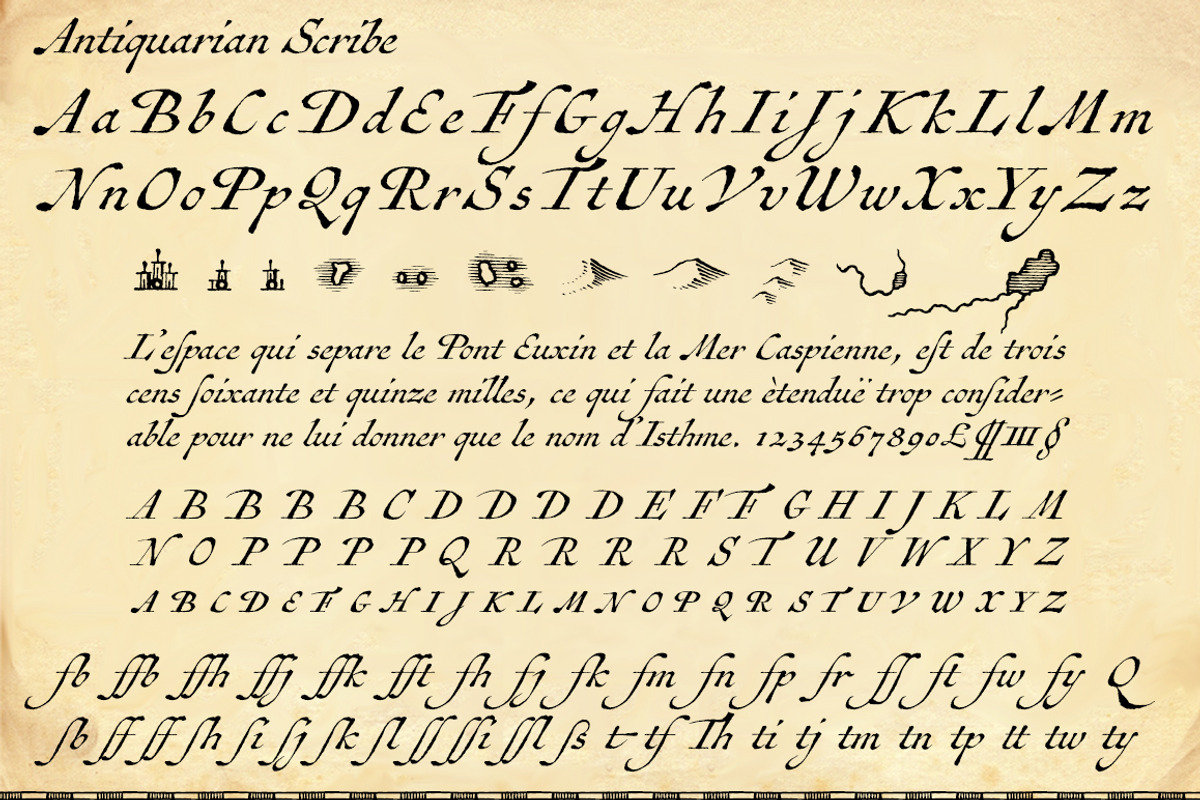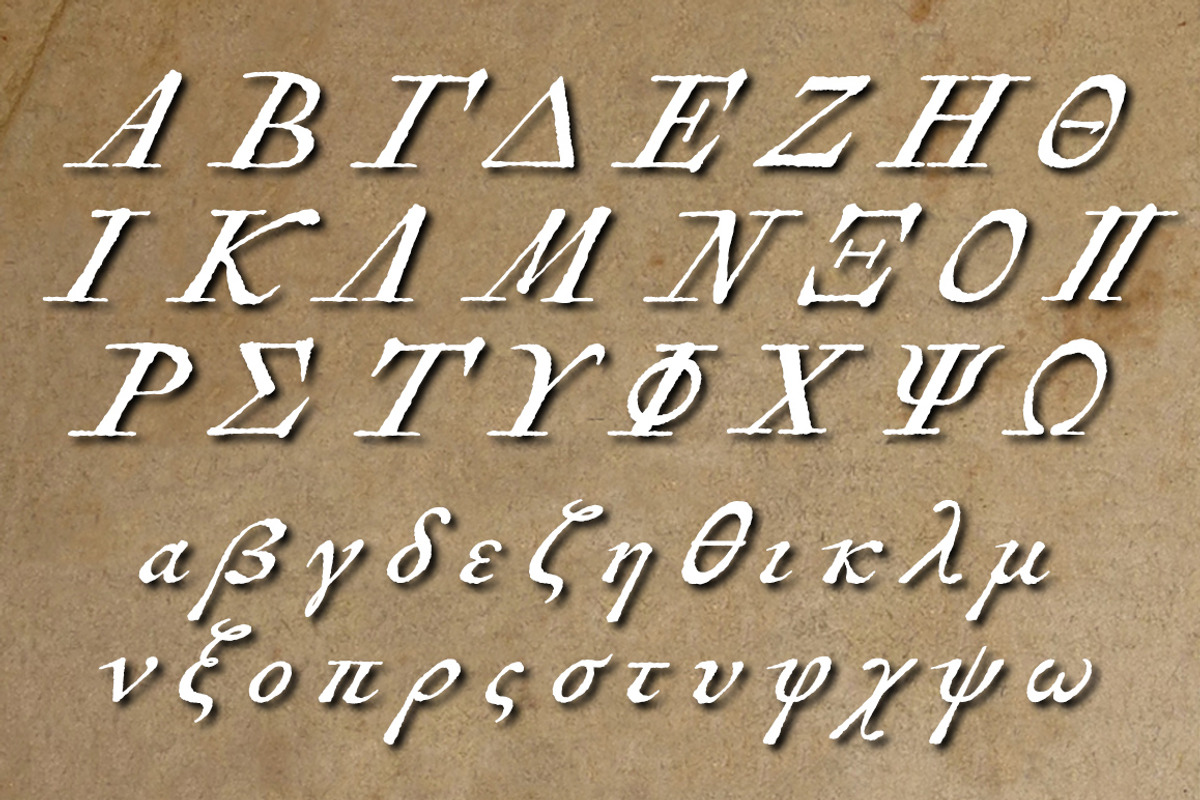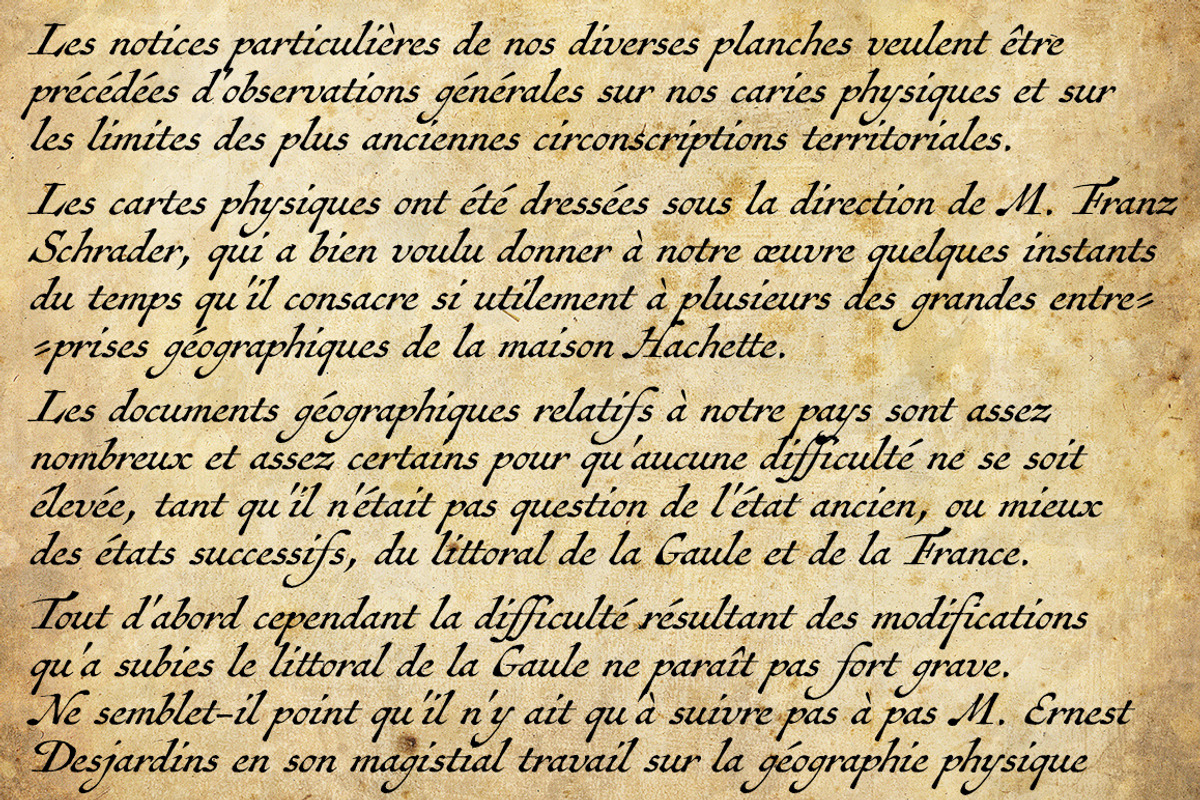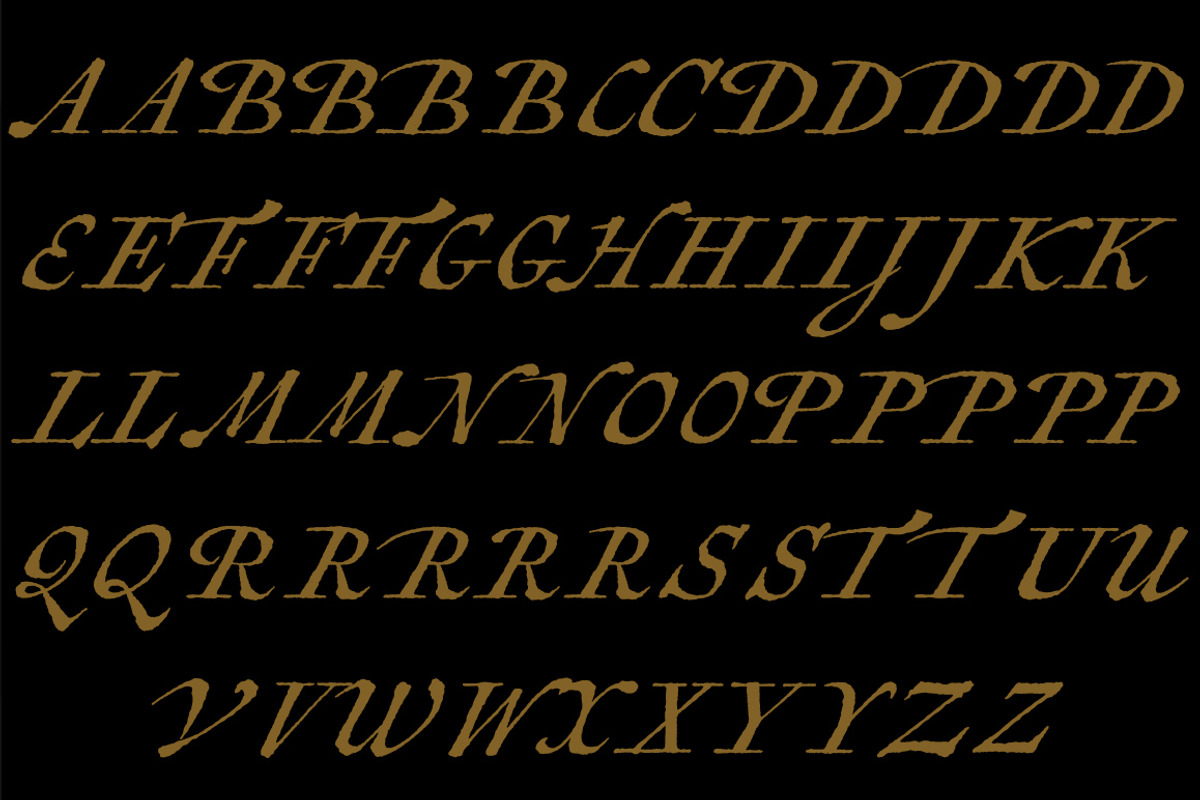
Antiquarian Scribe, an old map font
Antiquarian Scribe, an old map font by Three Islands Press is a font selected for branding, posters, packaging, typography.
- The text is in French, which gave me plenty of samples of diacritics and accented characters.
- Antiquarian Scribe has more than 1,000 glyphs, including true small caps, many historical ligatures, both lining and old-style figures, and
Why Antiquarian Scribe, an old map font is worth a look
Antiquarian Scribe, an old map font by Three Islands Press fits naturally into Branding, posters, packaging, typography.